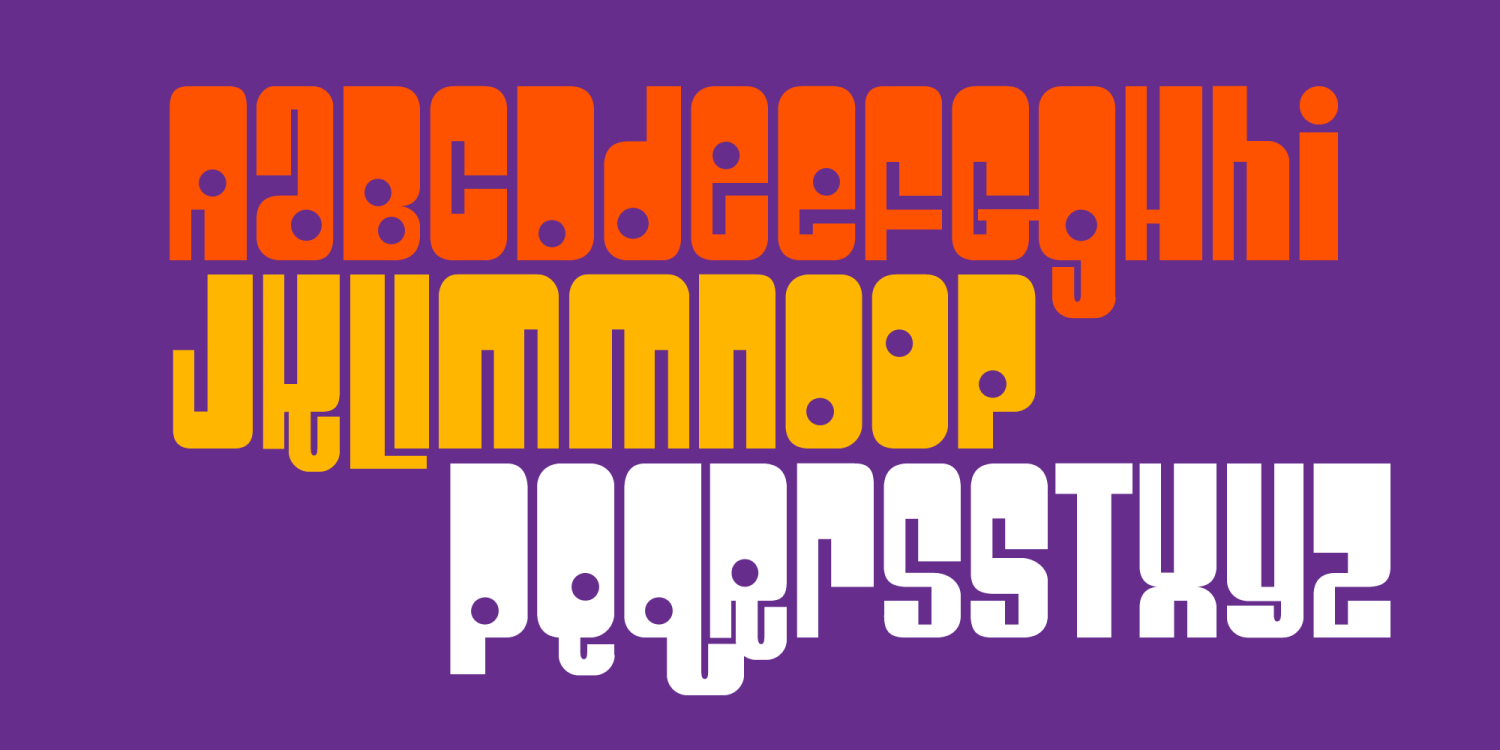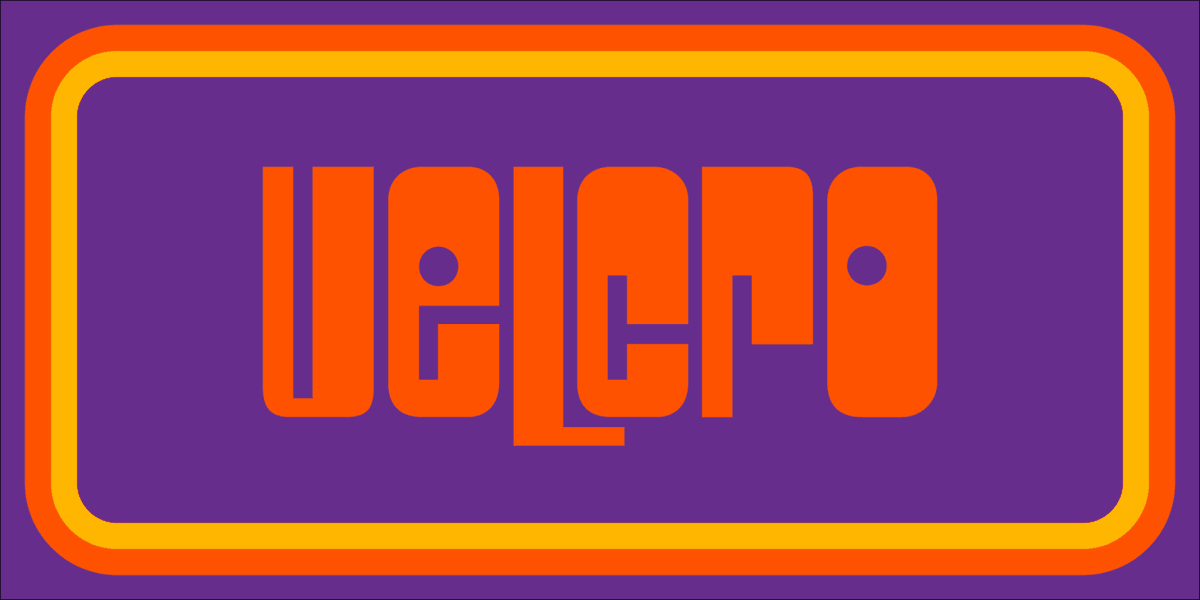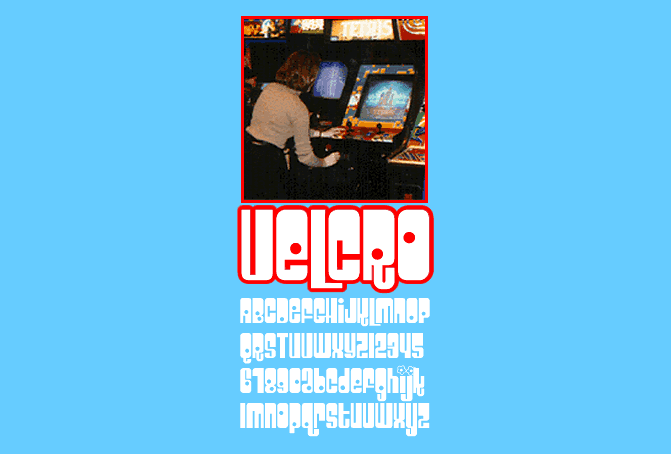
Velcro is kind of like Spacebeach, but better. Better because it fits better in the so-called "krazy designs". Better because "some people" like fonts with round holes in places where holes might not neccessarily be round. And better because I made Spacebeach over a year ago, so by that rationality, I should be getting better and so should my fonts.